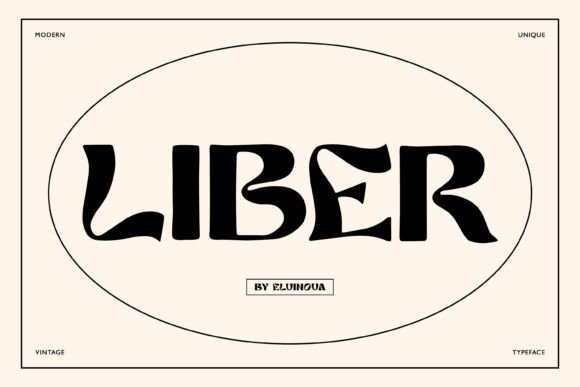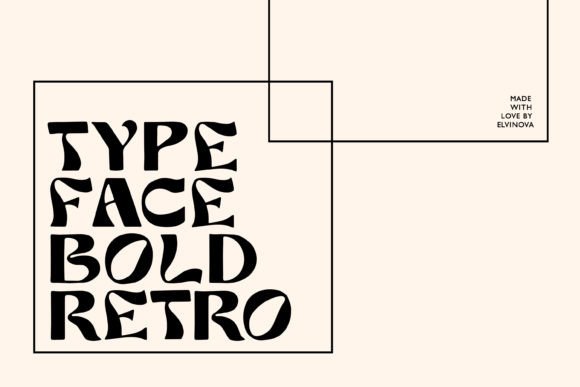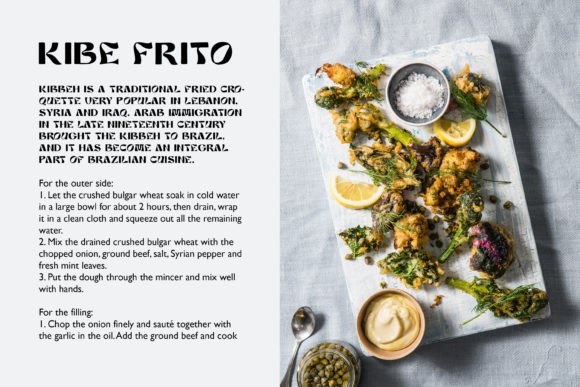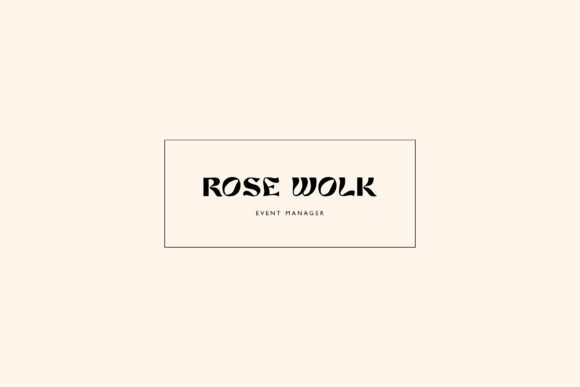
Liber Retro Font
About the Liber Retro Font
Experience the unique personality of Liber Retro Font, a font designed for impact. Liber Retro is a wavy, whimsical and uniquely shaped display font. Trendy and
Liber Retro’s playful curves make it ideal for headlines, short slogans, and branding elements where a touch of whimsy is desired. It works exceptionally well in posters, packaging for playful products, and social media graphics. However, its highly decorative nature makes it unsuitable for body text or UI elements requiring high readability. Avoid using it in long paragraphs or for applications demanding legibility at small sizes.
The font’s energetic personality pairs well with clean sans-serif fonts like Open Sans or Lato for a balanced contrast. For a more playful feel, consider pairing it with a rounded geometric sans-serif like Montserrat or a script font like Great Vibes, though use the script sparingly to avoid overwhelming the design. A classic serif like Garamond could also provide a sophisticated counterpoint, offering a sense of grounding to Liber Retro’s bold energy.
Liber Retro projects a bold, friendly, and modern personality. It is best suited for brands that wish to convey a sense of fun and approachability without sacrificing a contemporary aesthetic.
Liber Retro Font Usage Examples
Liber Retro Font Example